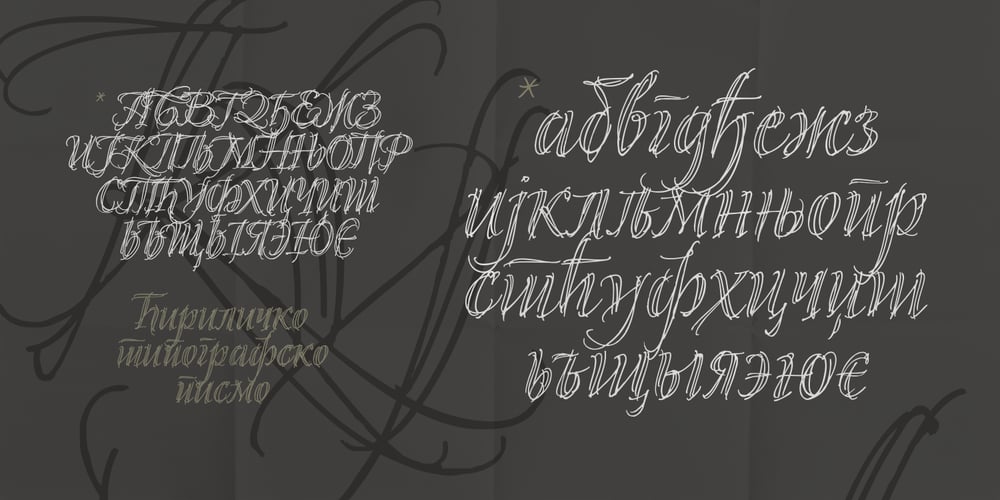
Kalli Sketch Font Family was designed by Lazar Dimitrijević and published by Posterizer KG. Kalli Sketch contains 1 styles and family package options. Basicly, Kalli Sketch is humanistic cursive drawn with pen. Inside the font you’ll find a host of Opentype features, alternate characters, including a full set of alternate ampersand characters (stylistic alternates), standard ligatures that automatically connect as you type and discretionary ligatures. Also, font contains basic and alternative Cyrillic characters, and more than 50 floral ornaments. Because of lightness and transparency, Kalli Sketch is looking good in combination with serif and sans serif (particularly bold) fonts.